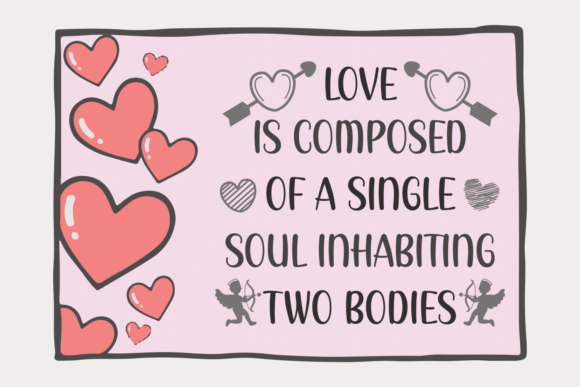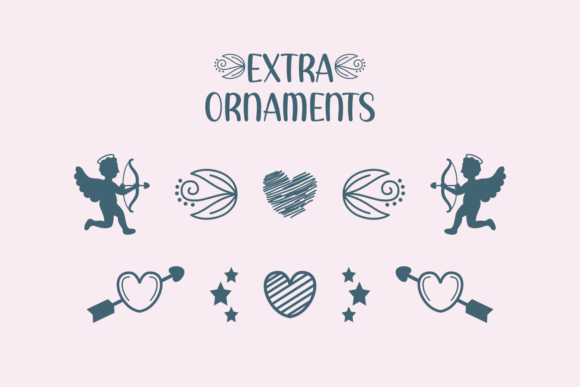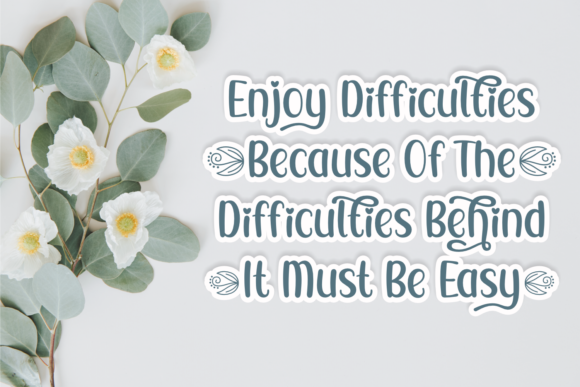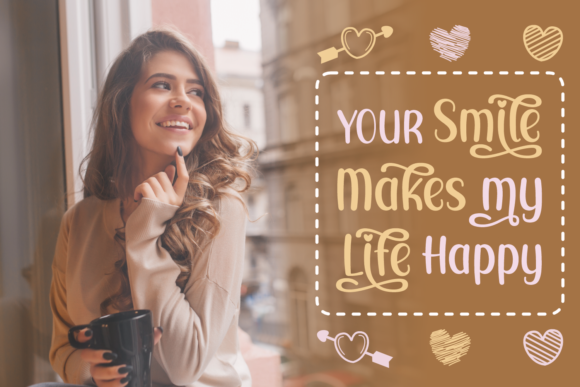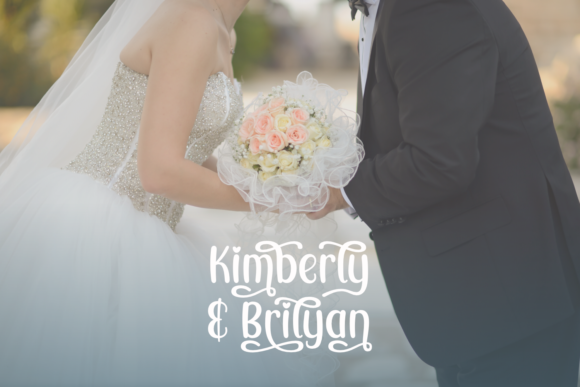
Introducing Emika Danely Font: Elevate Your Designs with Elegance
In the world of typography, few fonts manage to strike a balance between classic elegance and modern flair. Emika Danely Font is one such exquisite handwritten font that has captured the hearts of designers and crafters alike. With its masterful blend of calligraphic influences and contemporary style, Emika Danely is poised to become your new favorite font.
The Essence of Emika Danely Font
Emika Danely Font is a beautifully crafted handwritten font that exudes sophistication and charm. Its design is rooted in traditional calligraphy, yet it feels refreshingly modern and versatile. This font is perfect for those seeking to add a touch of elegance and personality to their projects. Whether you’re working on a branding campaign, a wedding invitation, or a packaging design, Emika Danely is sure to make a lasting impression.
Key Features of Emika Danely Font
- Classy Calligraphic Influences: Emika Danely Font boasts beautiful, flowing strokes that are reminiscent of traditional calligraphy. Its elegant lines and curves give it a sophisticated look that’s perfect for high-end designs.
- Contemporary and Fresh: Despite its classic roots, Emika Danely feels remarkably modern. Its clean lines and balanced proportions make it suitable for a wide range of design applications, from digital media to print.
- Versatility: This font is incredibly versatile, making it suitable for various design projects. Use it for headings, titles, and even body text to create a cohesive and stylish look.
- Ease of Use: Emika Danely Font is designed to be user-friendly. Its clear and legible letters ensure that your message is conveyed with clarity and style.
Why Choose Emika Danely Font?
With so many fonts available, why should Emika Danely be your top choice? Here are a few compelling reasons:
- Unique and Memorable: Emika Danely’s distinctive style ensures that your designs stand out from the crowd. Its unique charm makes it memorable, helping your brand or project leave a lasting impression.
- Time-Saving: With Emika Danely, you don’t have to spend hours designing custom lettering or searching for the perfect font. This exquisite handwritten font provides a professional look in minutes.
- High-Quality Design: Emika Danely is crafted with precision and attention to detail. Its high-quality design ensures that it looks great in any size or application.
Emika Danely Font is a valuable addition to any designer’s or crafter’s toolkit. Here are some ways you can use this versatile font:
- Branding and Logo Design: Create stunning logos and brand identities with Emika Danely’s elegant and modern style.
- Wedding and Event Stationery: Add a touch of sophistication to your wedding invitations, place cards, and other event materials.
- Packaging Design: Elevate your product packaging with Emika Danely’s beautiful and eye-catching lettering.
- Digital Media: Use Emika Danely in your digital projects, such as social media graphics, blog headers, and website designs.
Emika Danely Font is a true gem in the world of typography. Its exquisite handwritten design, classy calligraphic influences, and contemporary style make it a perfect choice for designers and crafters seeking to elevate their projects. With its versatility, ease of use, and high-quality design, Emika Danely is sure to become your go-to font for a wide range of applications. Fall in love with Emika Danely and bring your designs to the highest levels!